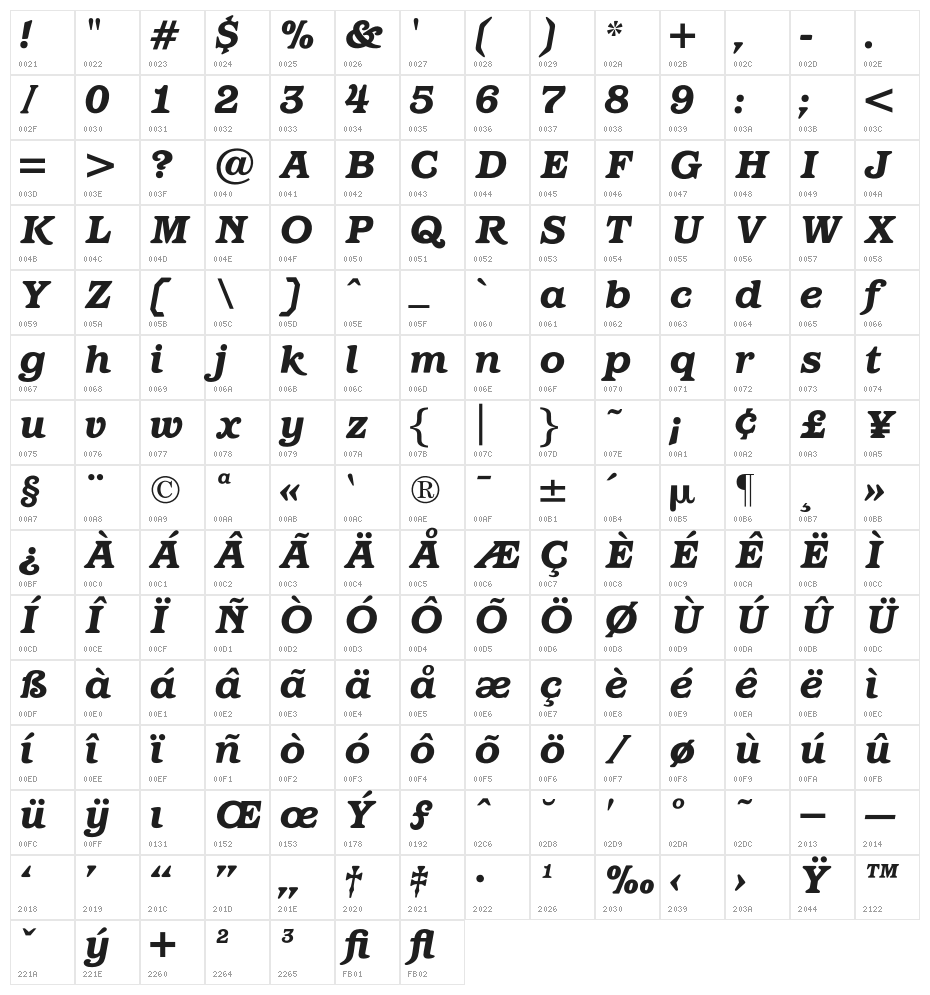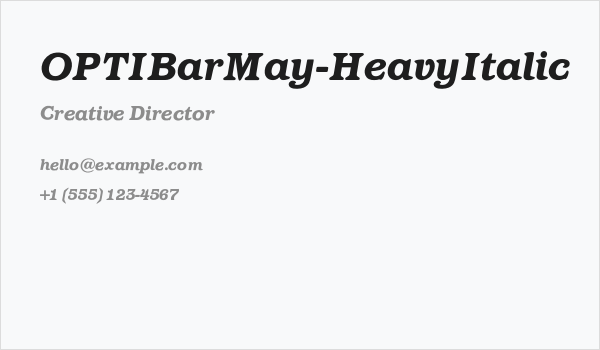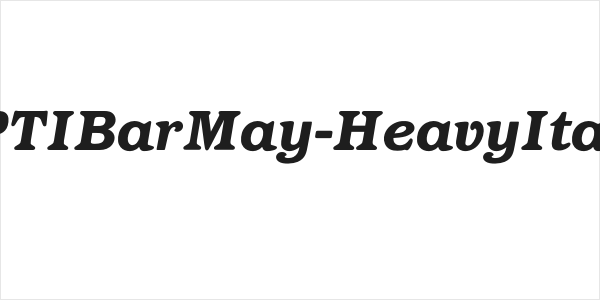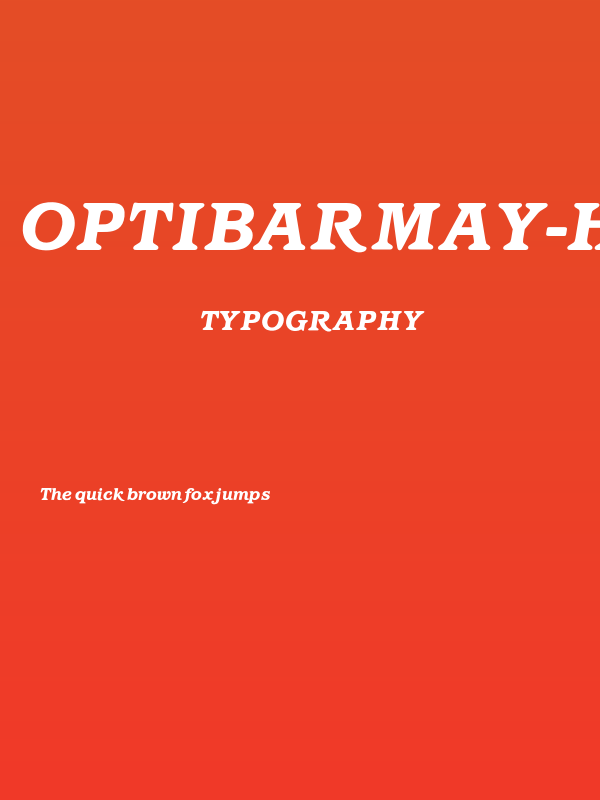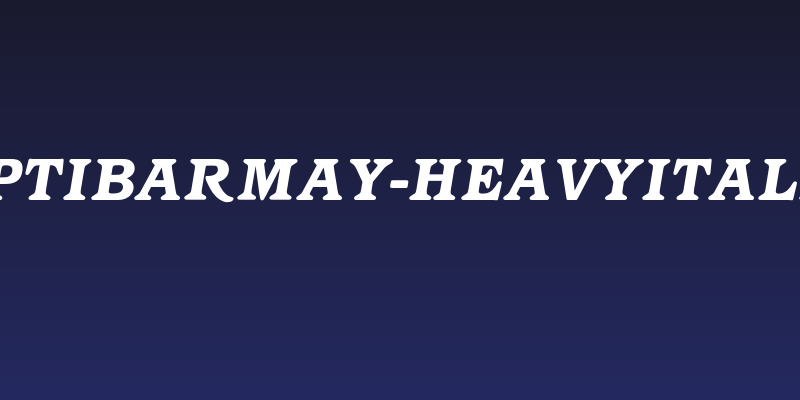
OPTIBarMay-HeavyItalic Font
OPTIBarMay-HeavyItalic Description
This font features a bold and dynamic style with a pronounced italic slant, giving it a sense of movement and energy. The characters are robust and well-defined, with thick strokes that convey strength and confidence. The serifs are prominent, adding a touch of classic elegance to the overall design. The uppercase letters are particularly striking, with a commanding presence that makes them ideal for headlines and titles. The lowercase letters maintain the same boldness, ensuring readability and consistency across different text sizes. The numerals are clear and easily distinguishable, making them suitable for various applications. Special characters are included, providing versatility for different design needs.
Overall StyleClassic
Use CaseHeadlines, Logos, Branding
Proposed ProjectsIdeal for branding, advertising, and editorial design where a bold and classic look is desired.